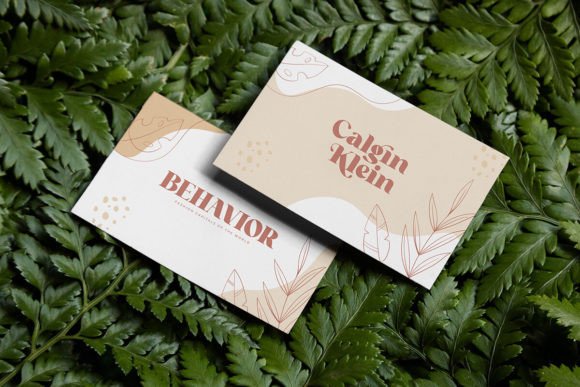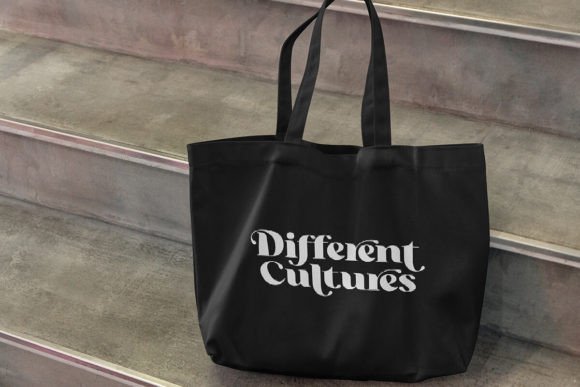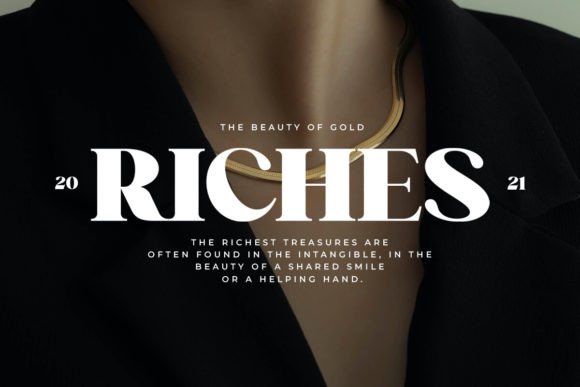
Different Cultures Font
Introducing “Different Cultures,” a font that effortlessly embodies the latest design trends. This modern serif display font transcends conventional styles, offering a perfect fusion of bold and thin strokes that create a visually stunning balance. Immerse your designs in the contemporary allure of “Different Cultures,” where every curve and detail is meticulously crafted for maximum impact.
Explore the font’s diverse array of alternates and ligatures, providing you with a stylish toolkit to customize and enhance your typographic creations. “Different Cultures” is more than just a font; it’s a visual journey that seamlessly blends modernity with timeless elegance.
Elevate your projects with the unique and captivating aesthetics of “Different Cultures,” setting a new standard for stylish and versatile modern serif display fonts in today’s design landscape.